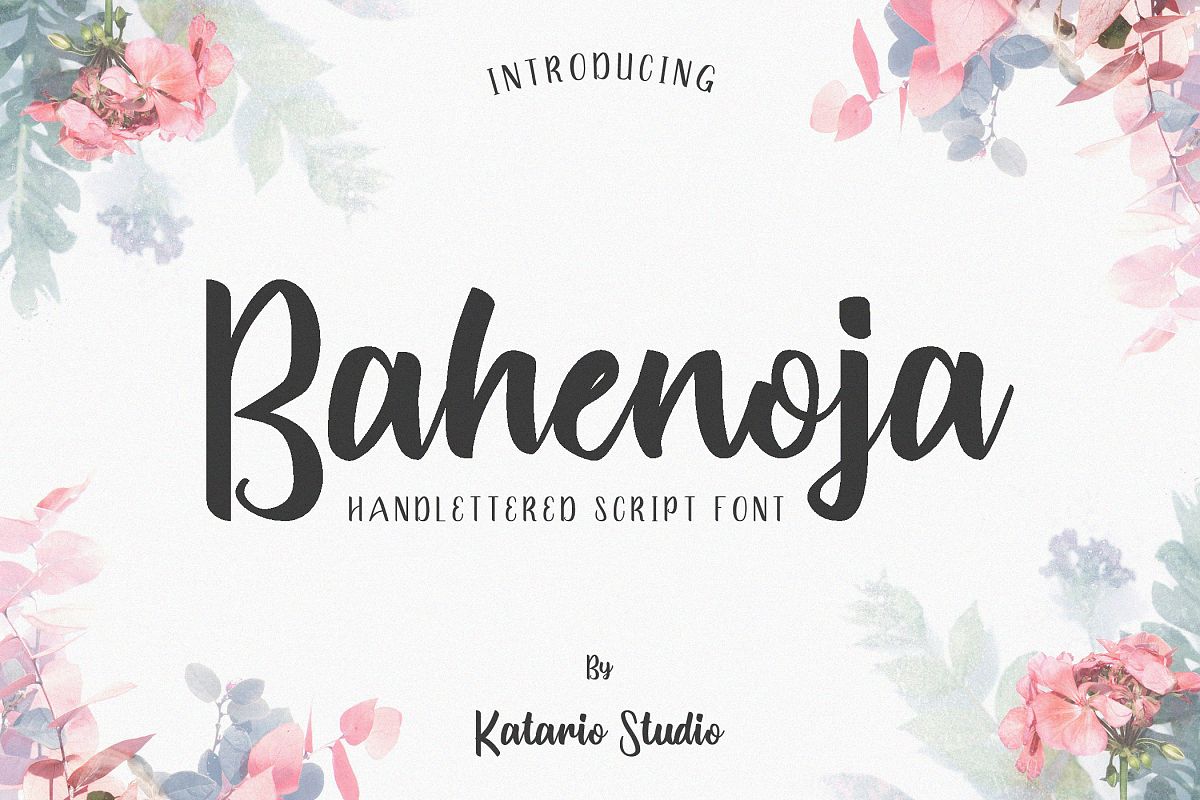
Bahenoja
Katario Studio Presents:
Bahenoja Font
Beautiful handwritten script font that suitable for any projects you have. Especially for wedding, holiday event, brand.